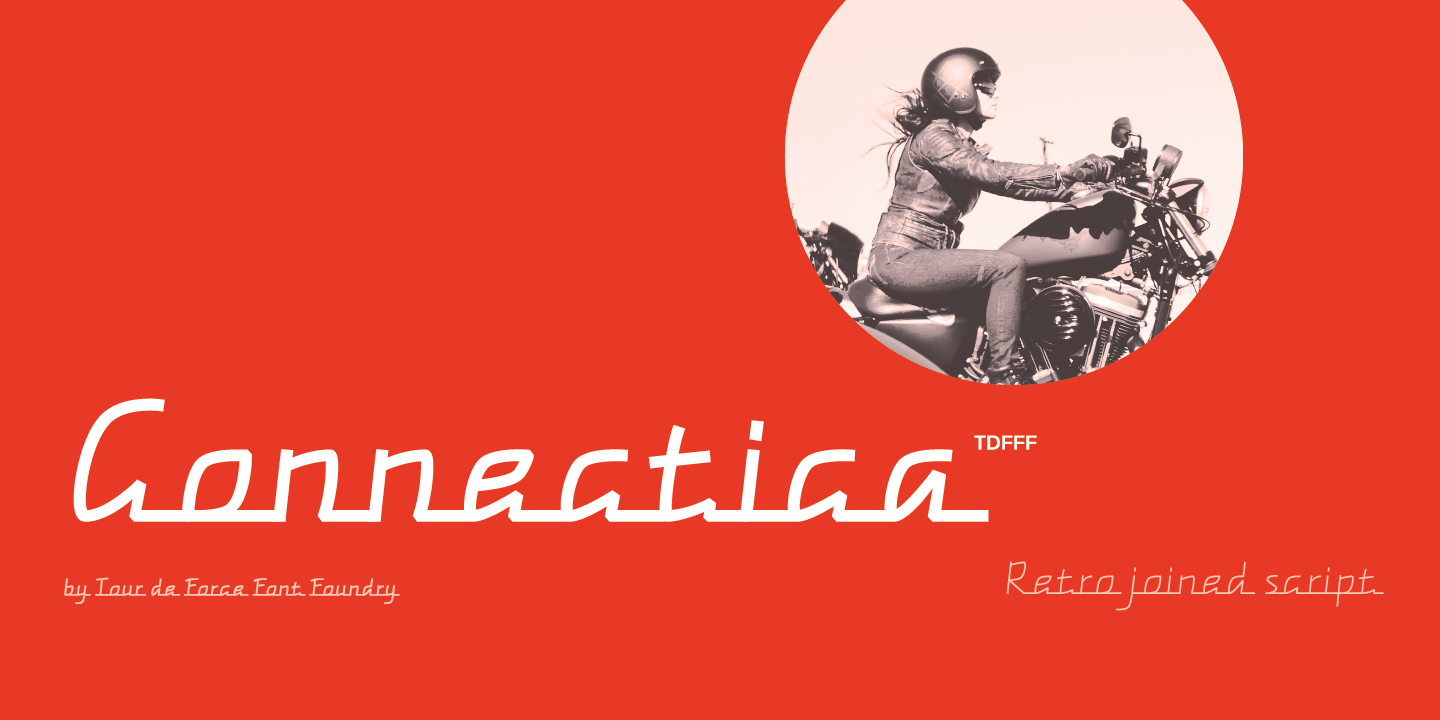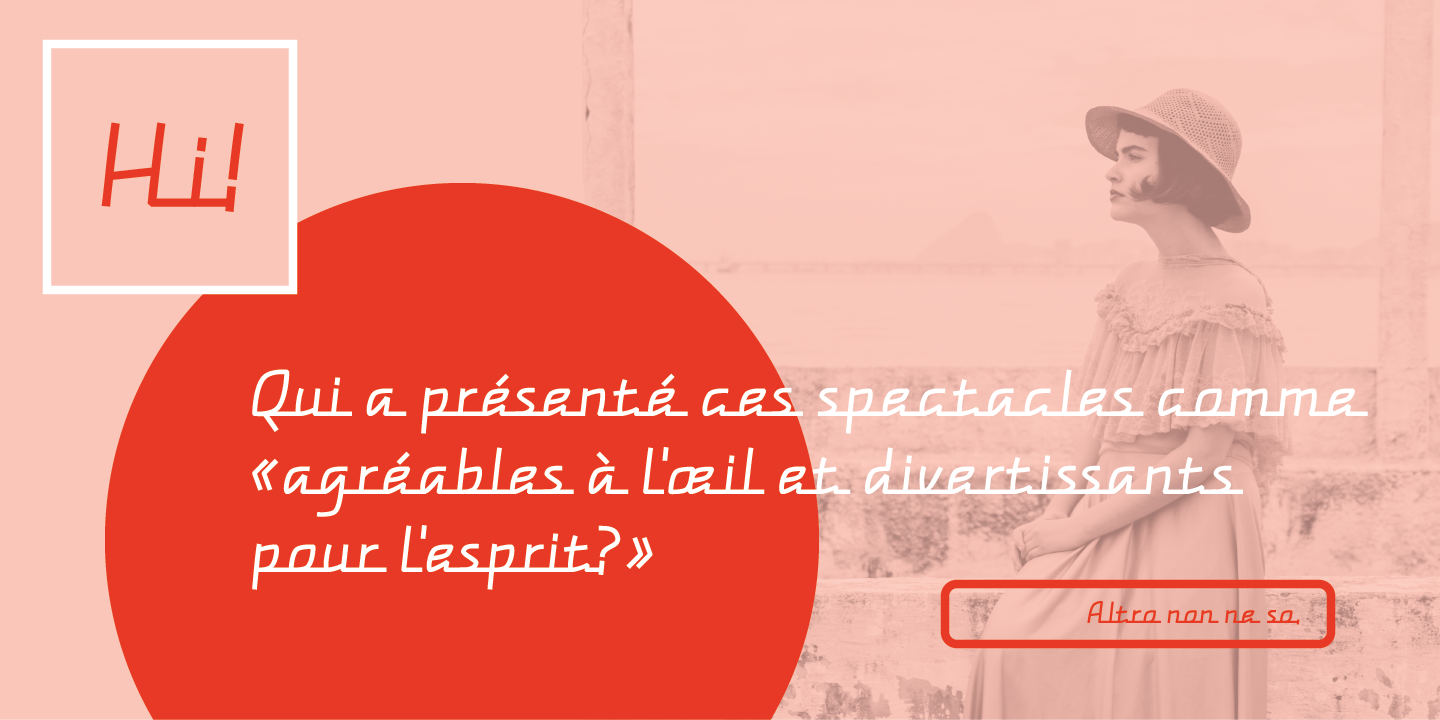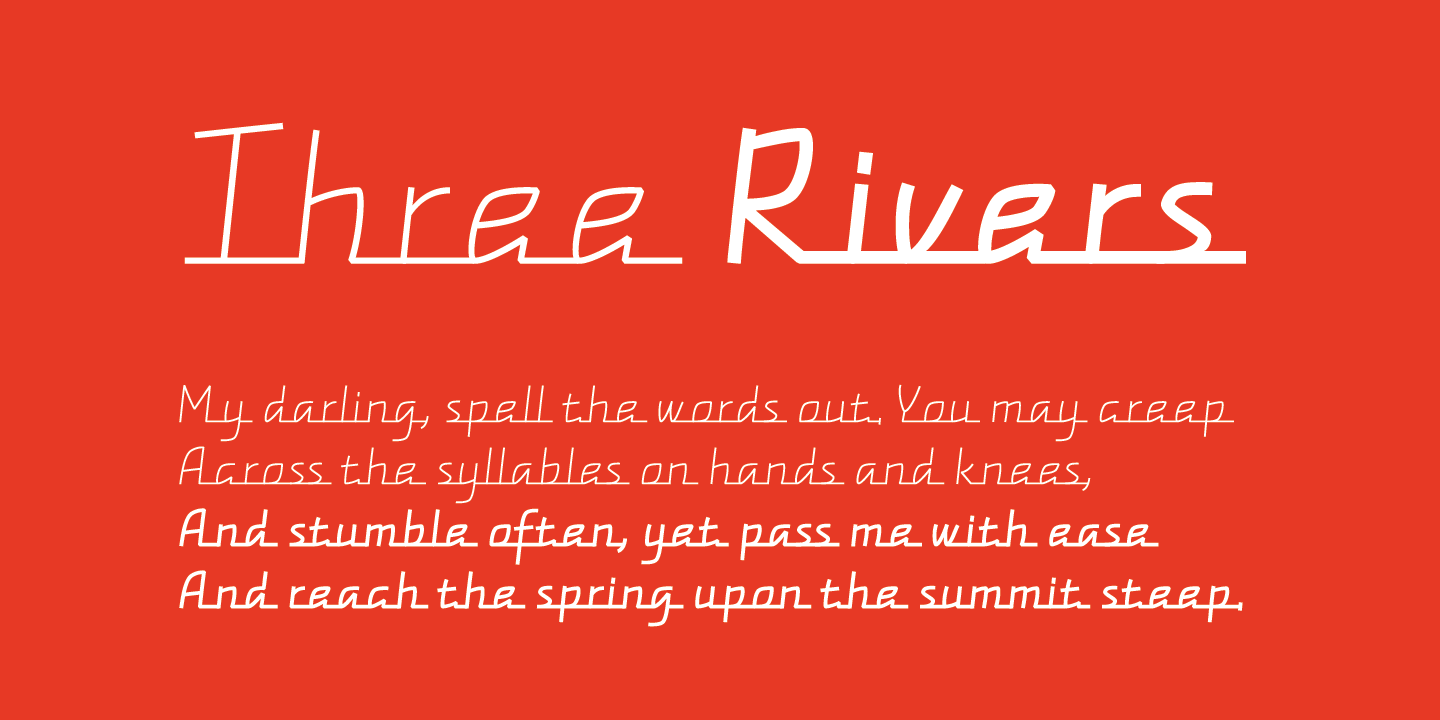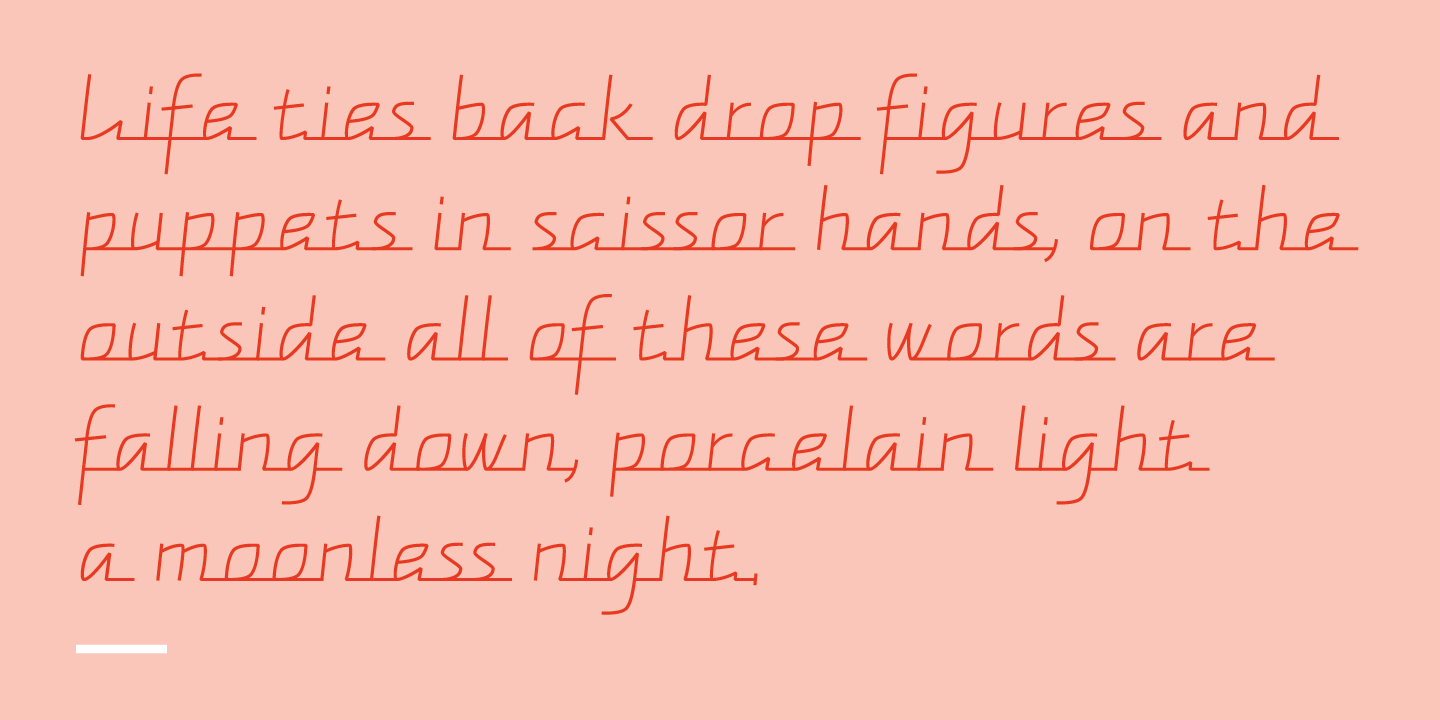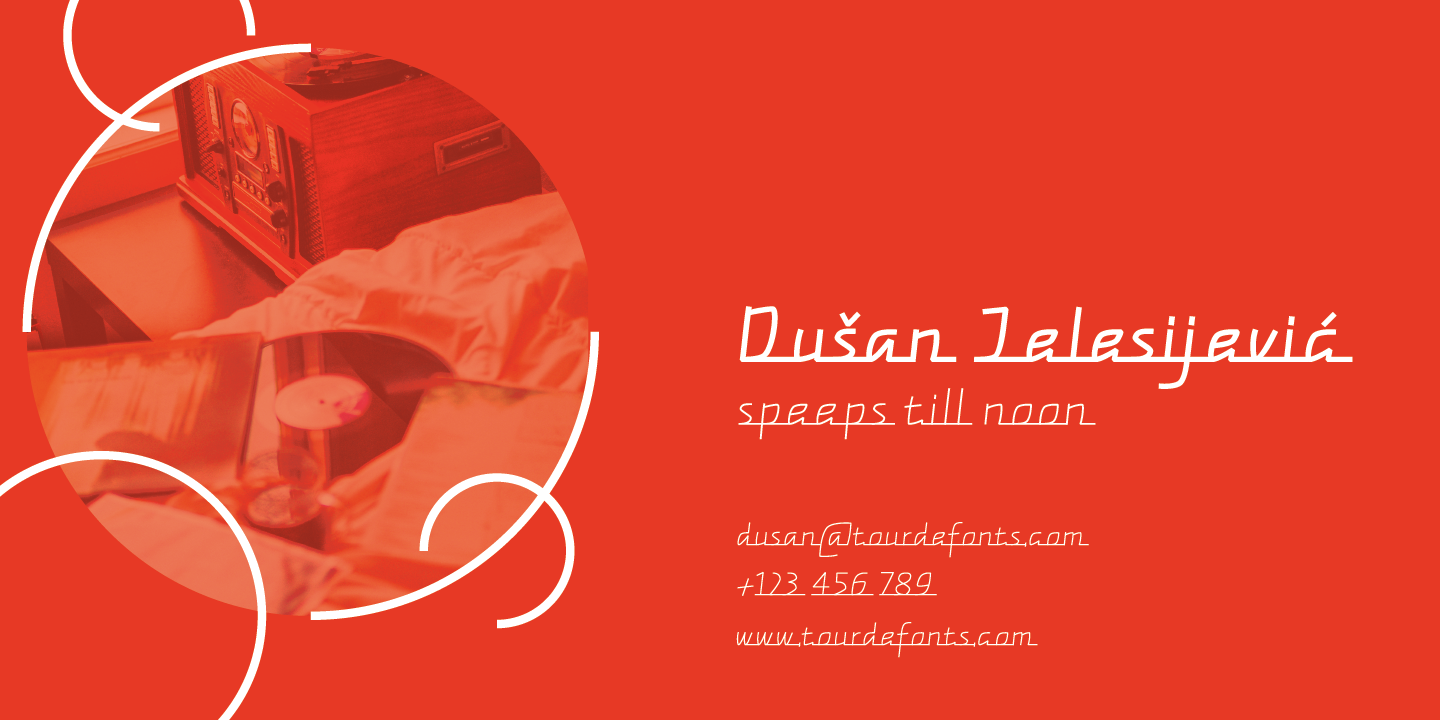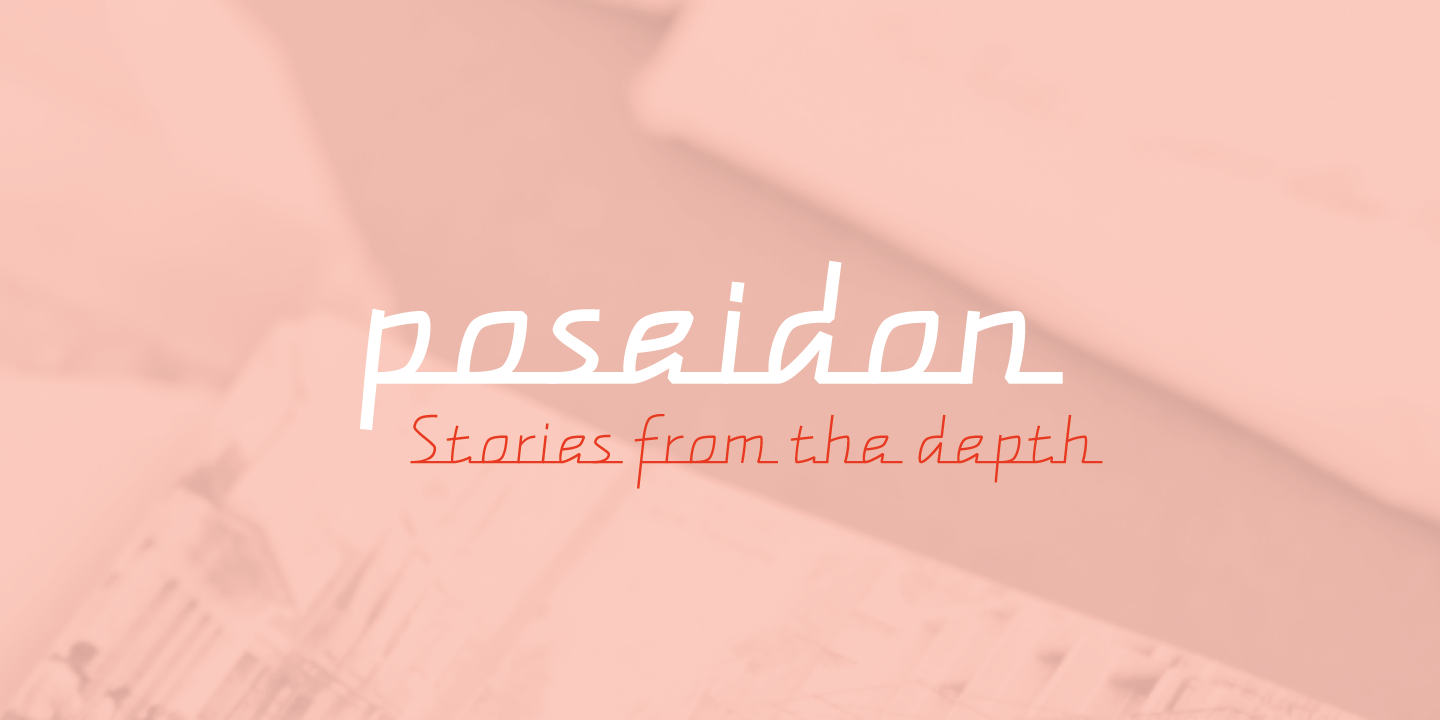
Connectica, as the name itself refers, is joined monolinear script family. Comes in two weights, Light and Regular. Due to specific design, we added fake Swash OpenType feature for initial capital characters, where letters like E, F, U, V, W, Y lack joining line on the left side of the characters.